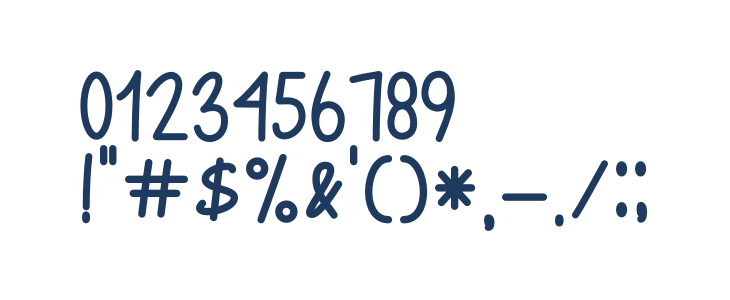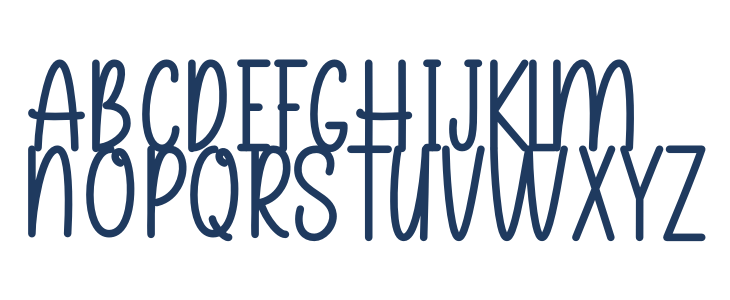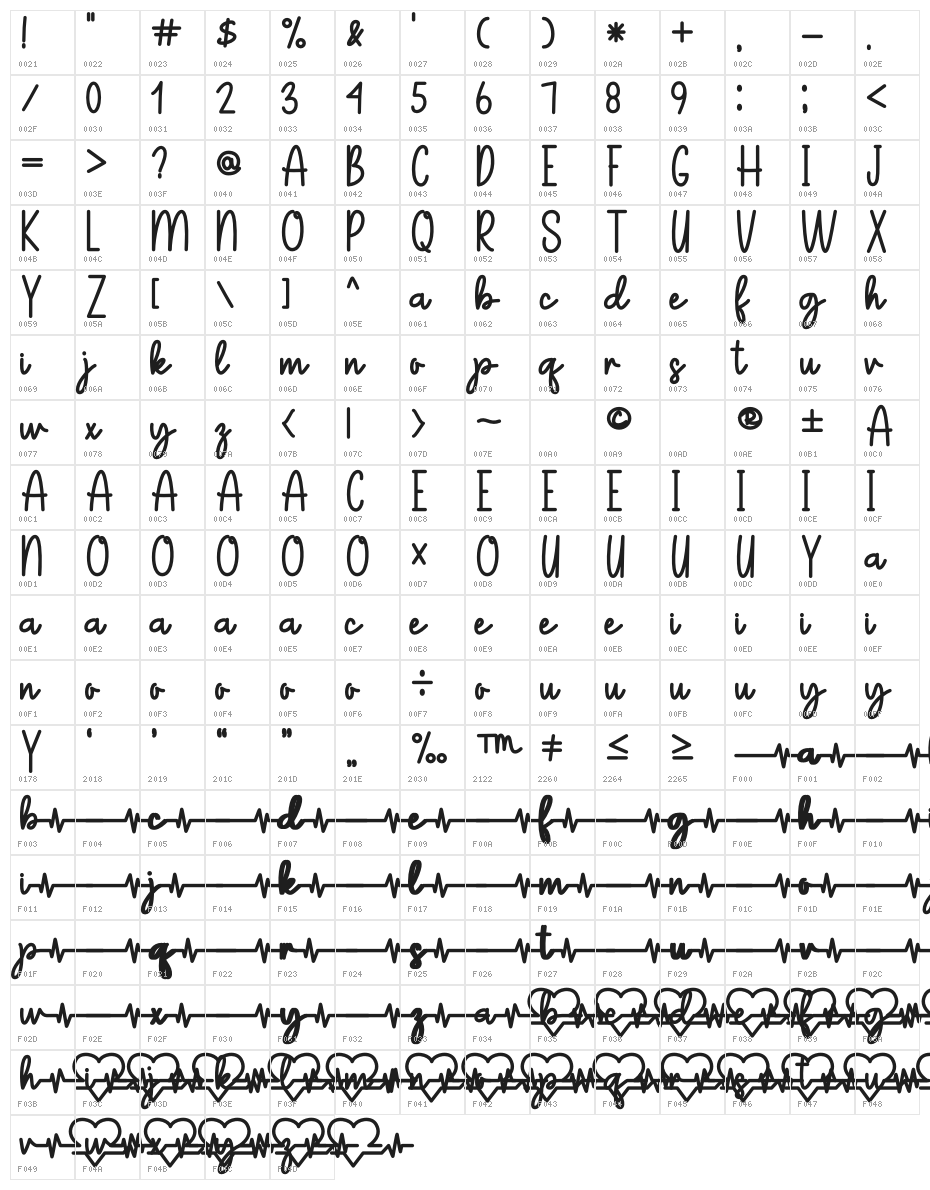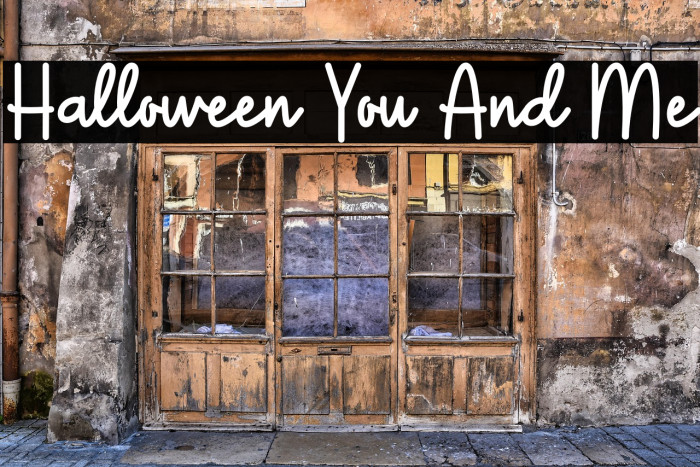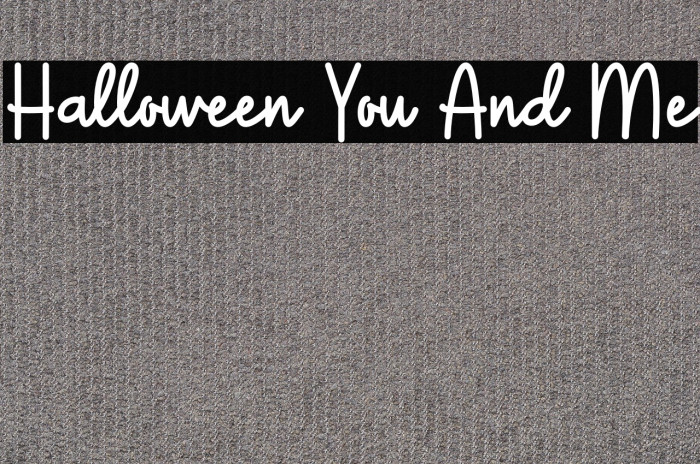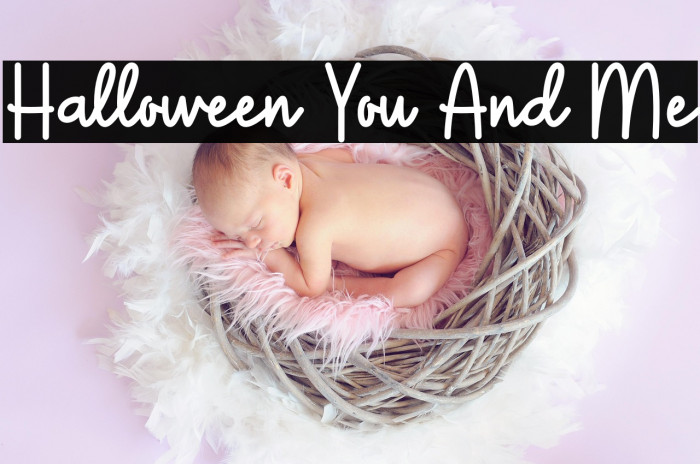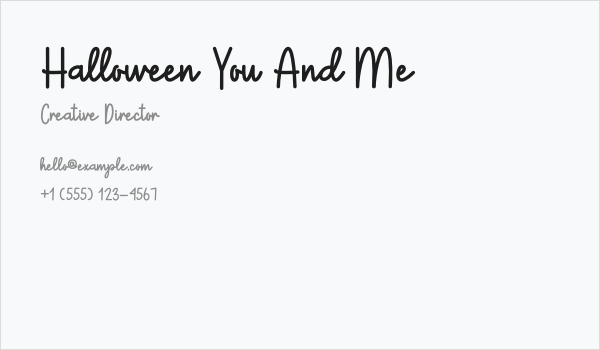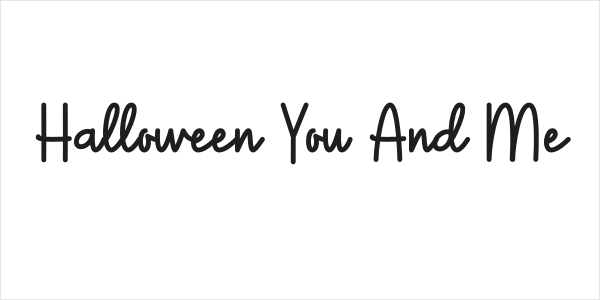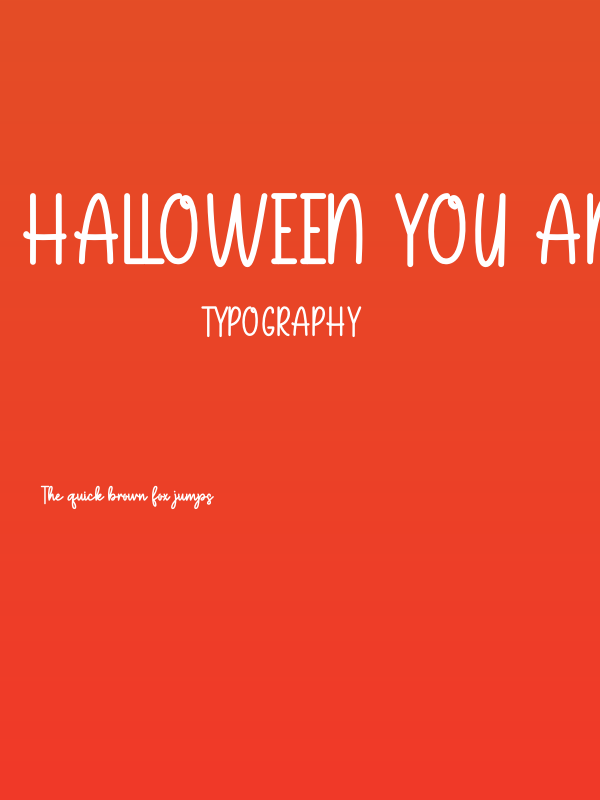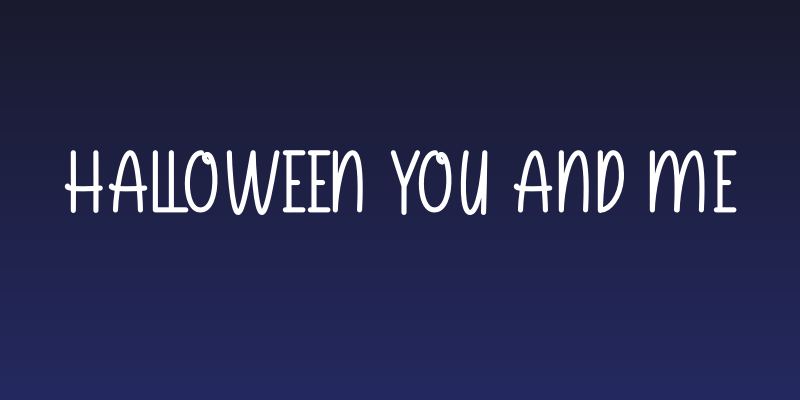
Halloween You And Me Font
Halloween You And Me Description
A playful, handwritten-style font with tall, narrow uppercase letters and smooth, connected lowercase script. The strokes are consistent in thickness, giving a casual and friendly appearance.
| Use Case | Headlines, Invitations, Greeting cards |
| Proposed Projects | Children's books, greeting cards, Halloween-themed designs, casual invitations, and playful branding. |